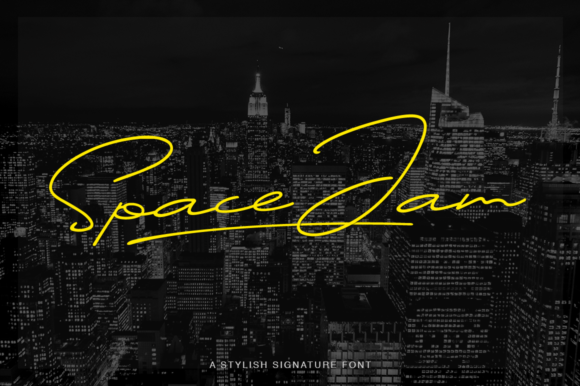
Space Jam Font Download Script Fonts: Looking for a font that combines playfulness, elegance, and handmade charm? Introducing the Space Jam Font — a whimsical, modern calligraphy typeface that gives your designs a personal, handwritten feel with a fresh twist.
Whether you’re creating a logo, a wedding invitation, or branded social media content, Space Jam helps you express creativity with heart. Its smooth curves, authentic flow, and delicate flourishes make it the perfect font for design projects that need to feel artistic, emotional, and stylish.
✨ What is the Space Jam Font?
Space Jam is a handcrafted script and calligraphy font that mimics real brush lettering. Designed to look like it was written with a flowing pen or brush marker, the font delivers a warm and personal touch that stands out in both digital and print formats.
It’s inspired by the current trend of modern calligraphy, where elegance meets casual style. With its fluid strokes, organic baseline, and handcrafted swashes, Space Jam feels genuine and expressive — perfect for those who want to add emotion and charm to their designs.
It’s not the movie font from the Space Jam franchise — instead, this is a handwritten font that brings joy to creative professionals and hobbyists alike.
🌟 Key Features of Space Jam Font
✅ Modern Calligraphy Style – A perfect blend of elegance and informality.
✅ Handwritten Look – Created with a brush-pen effect that mimics real handwriting.
✅ Perfect for Branding – Especially well-suited for logos, product packaging, and social media graphics.
🎨 Best Use Cases for Space Jam Font
Space Jam is a versatile typeface that adapts beautifully to a wide range of design applications. Its soft and stylish lines make it especially ideal for projects that require a personal, emotional, or feminine tone.
1. Logos & Branding
If you’re designing a brand for a beauty product, boutique, wedding planner, or lifestyle blogger, Space Jam gives it a handcrafted and premium feel.
2. Wedding Invitations & Stationery
From save-the-date cards to RSVP inserts, the flowing script of Space Jam adds romance and elegance to wedding materials.
3. Social Media & Instagram Posts
Calligraphy fonts are a go-to for aesthetic quote graphics and stories. Space Jam keeps your feed classy yet modern.
4. Greeting Cards & Gift Tags
Add a heartfelt touch to holidays, birthdays, and thank-you cards. The font is expressive without being overly fancy.
5. Business & Product Packaging
For handmade products like candles, soaps, jewelry, and baked goods, Space Jam gives your labels and packaging a warm, authentic vibe.
🖋️ Font Pairing Tips
Since Space Jam is a decorative script, it works best when paired with clean and neutral fonts that don’t compete visually. Here are a few winning combinations:
Space Jam + Montserrat – Great for logos or product labels with a balance of charm and clarity.
Space Jam + Lora – Pairing script with a serif makes for elegant editorial layouts.
Space Jam + Open Sans – Ideal for modern web design or promotional materials.
A: No. Despite the name, this is not the font used in the Space Jam movie franchise. It’s a modern calligraphy typeface unrelated to the movie branding.
Q4: Does Space Jam include special characters or swashes?
A: Yes! Many versions of Space Jam are PUA encoded, which means you can access alternate characters, ligatures, and swashes using tools like Character Map (Windows) or Font Book (Mac).
💡 Final Thoughts
If you’re looking for a stylish, modern, and heartfelt font, the Space Jam Font is a must-have. It’s perfect for everything from passion projects to personal branding, combining elegance and a handmade feel in one elegant script.